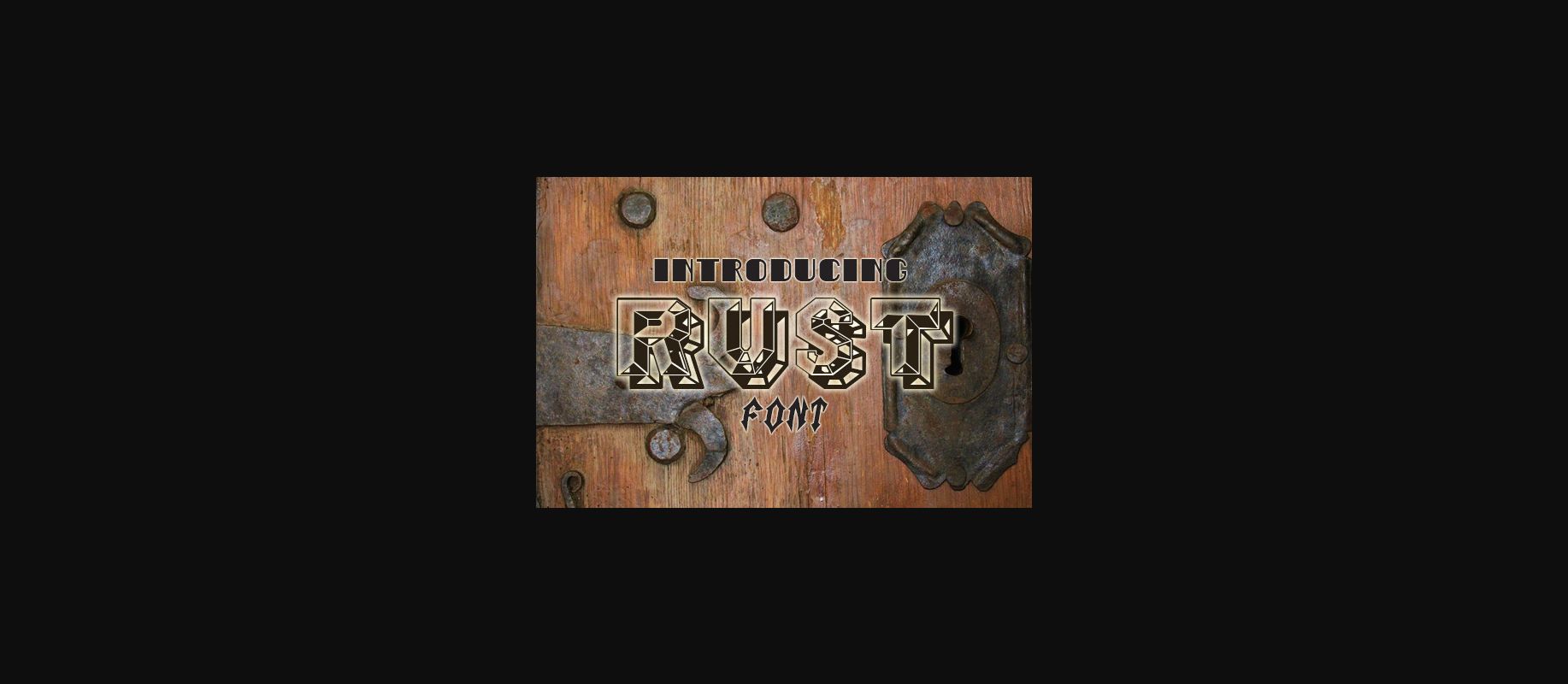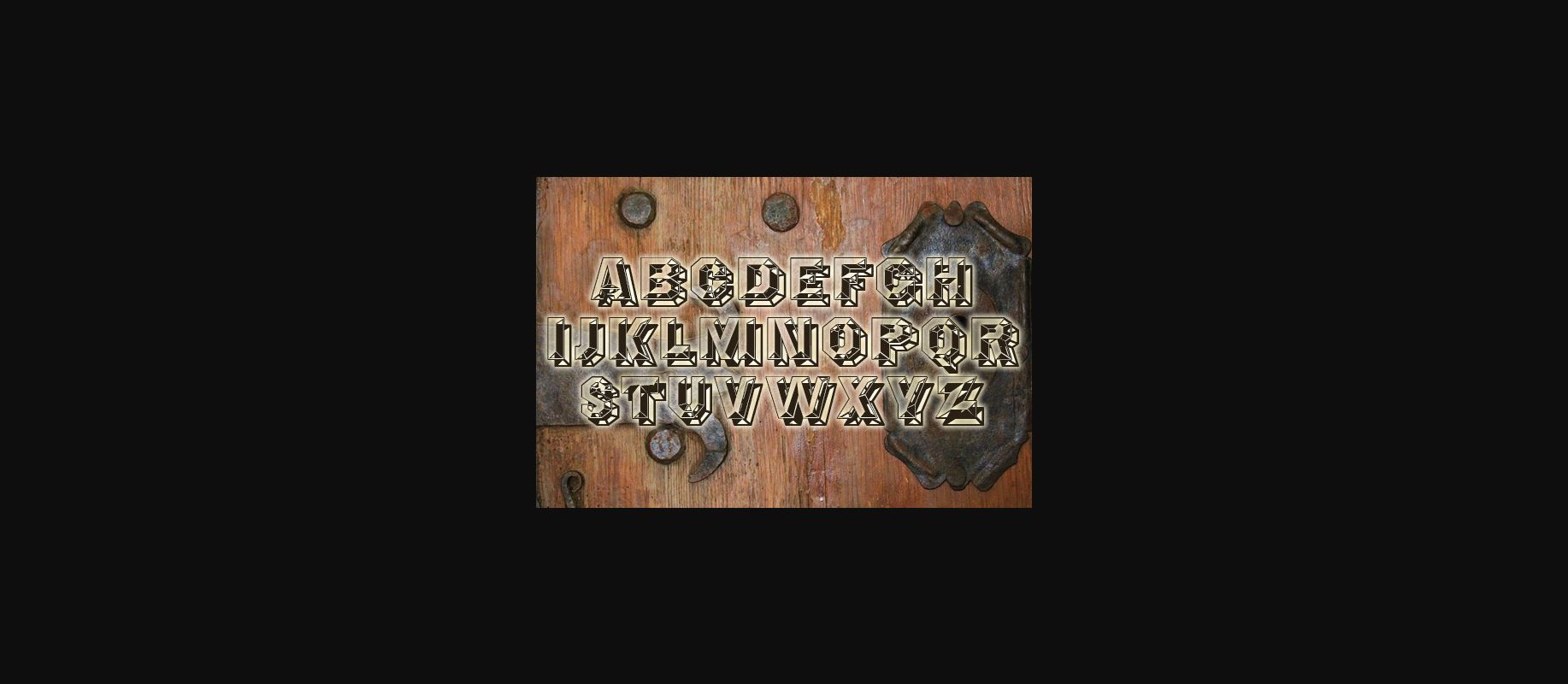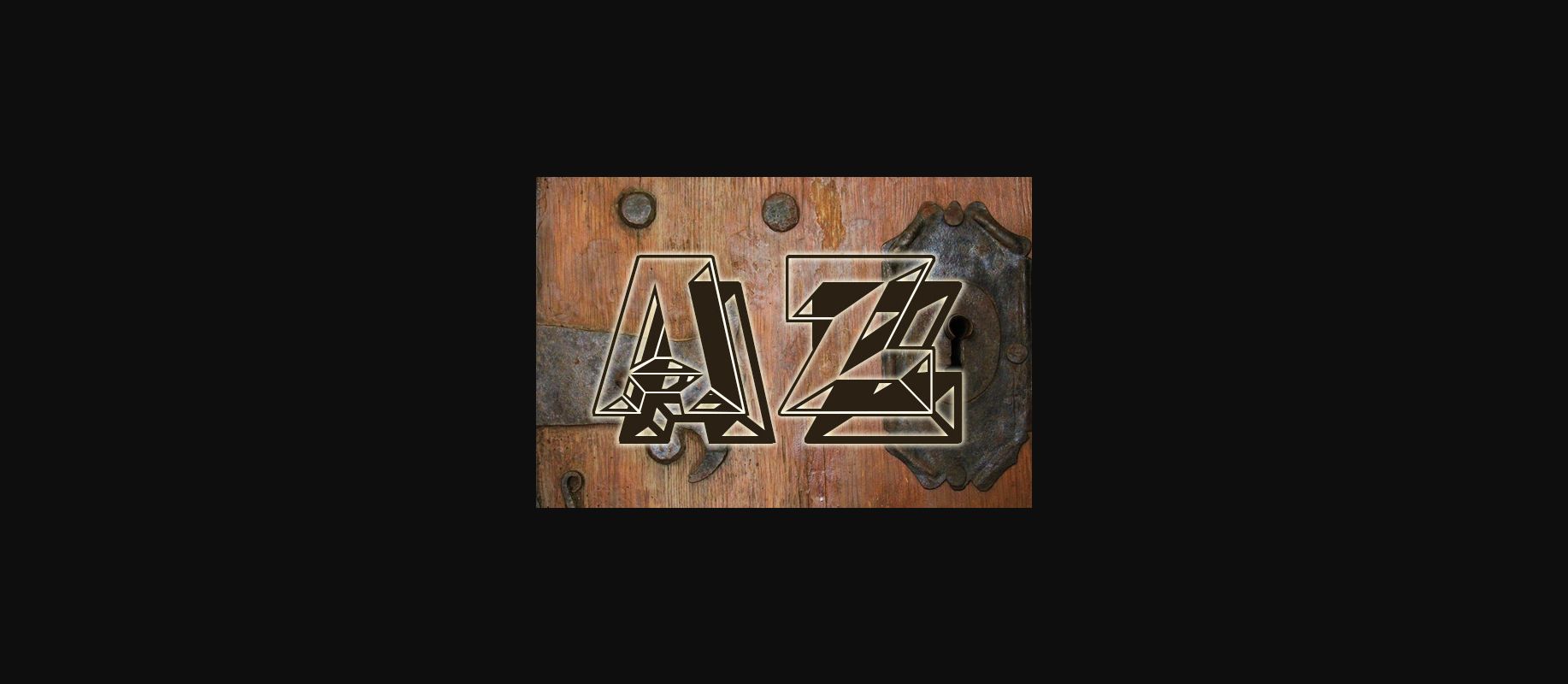
About Rust Font
Rust is rusty and unique font. This font is rigorously crafted and remarkably detailed. Add this rust-covered font to your projects and you will be speechless with the results!